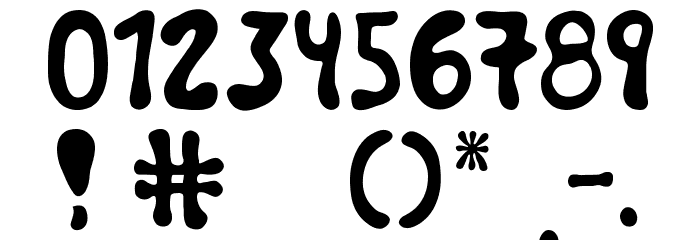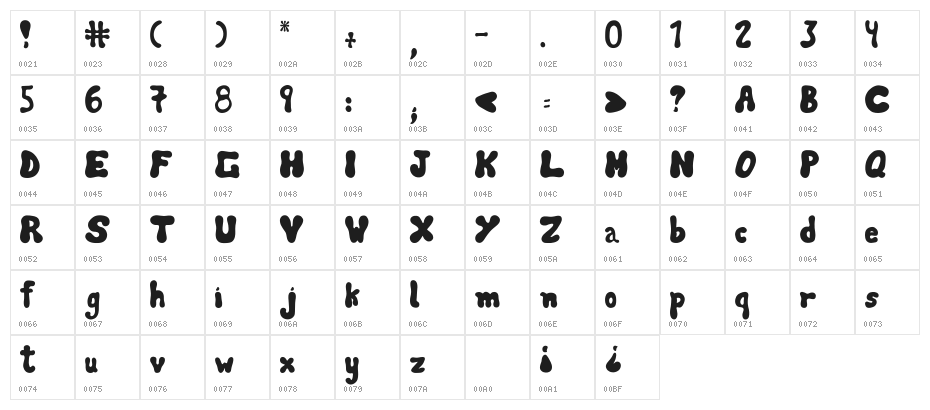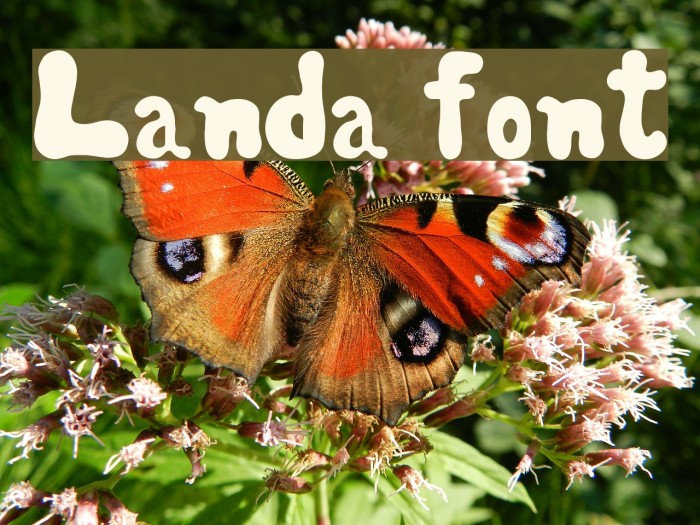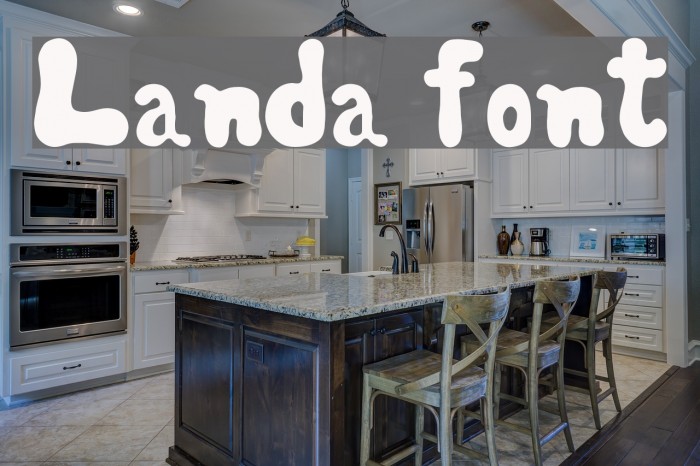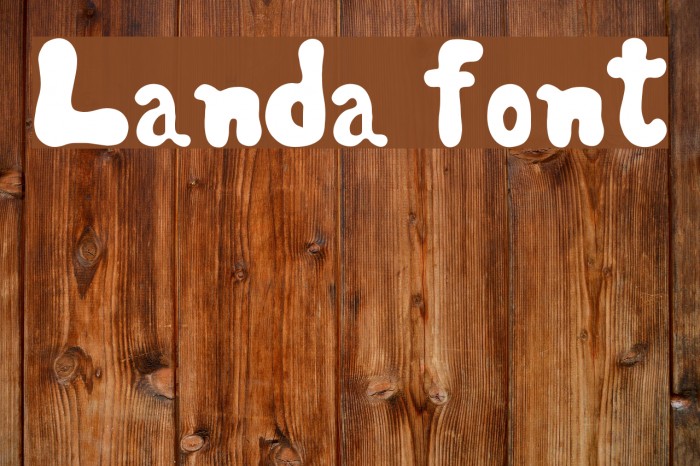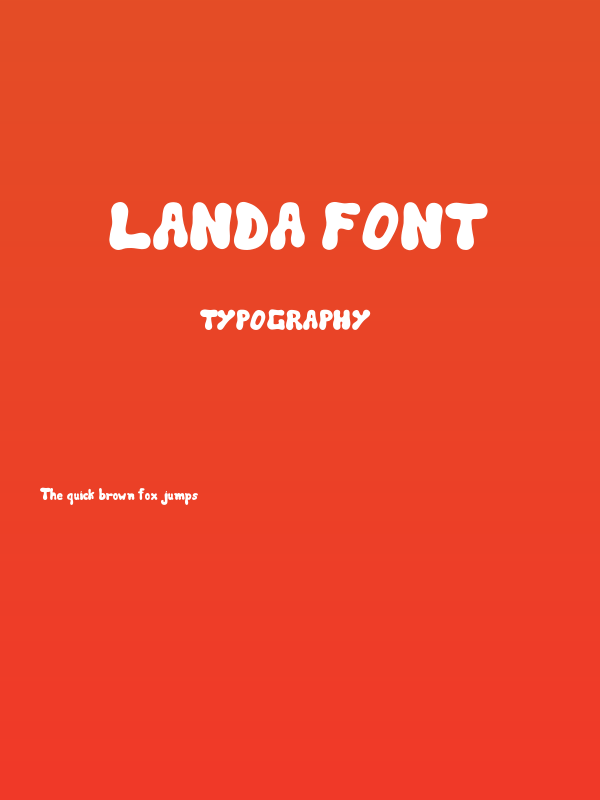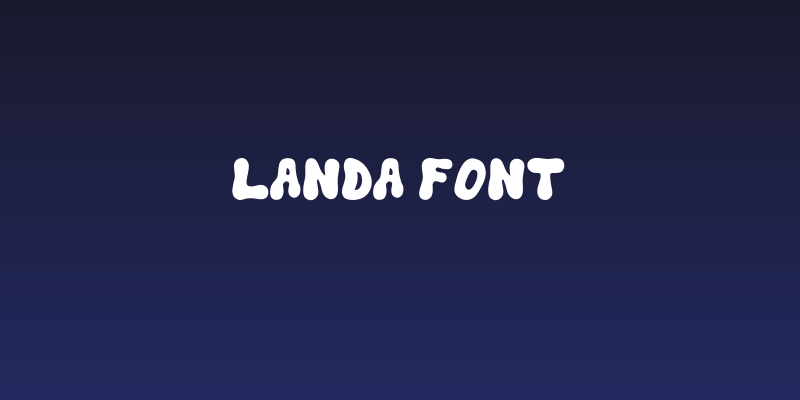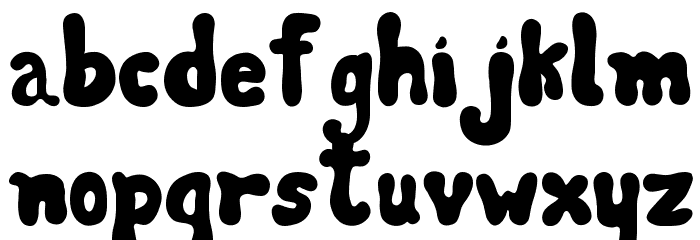
Landa font Font
Landa font Description
This playful and bold font features thick, rounded characters that give it a bubbly and friendly appearance. The letters are consistently wide and have a soft, organic feel, making them stand out with a unique personality. The numbers and special characters follow the same design principles, ensuring a cohesive look across all elements. This font's whimsical style makes it ideal for projects that require a fun and approachable aesthetic.
Overall StylePlayful
Proposed ProjectsPerfect for children's books, playful branding, party invitations, and creative posters.